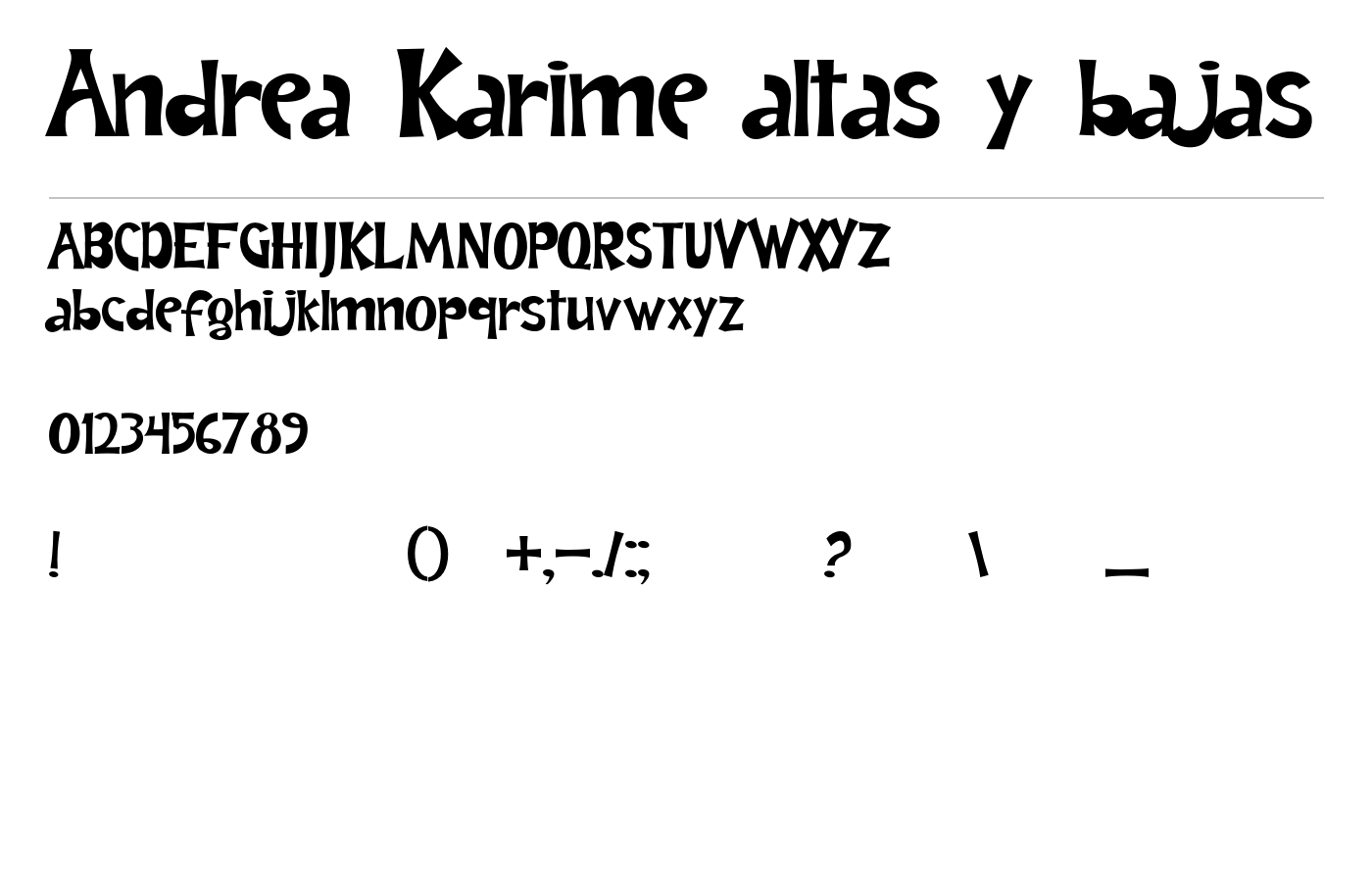
Andrea Karime altas y bajas is a playful and distinctive sans serif font with irregular, hand-drawn character shapes that bring a quirky, artistic charm. Its uneven stroke widths and whimsical letterforms give it a casual yet bold personality, making it great for creative projects, headlines, or branding that seeks a friendly and unique vibe. This font works well where a fun and informal look is desired, such as posters, logos, or children's media.
Andrea Karime altas y bajas Font
About Andrea Karime altas y bajas Font